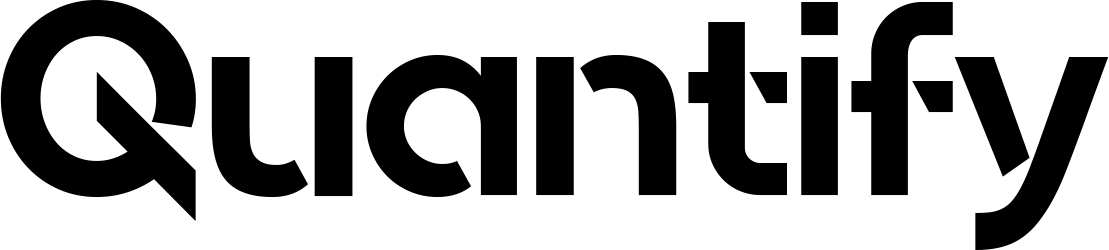
Quantify Font
Searching for a sans serif font that’s stenciled, and will give your typography a futuristic feel. Then the Quantify is brilliant as it looks modern and informal. This modern sans serif font has bold characters with cutting edges and provides you with solid letterforms.
If there is a place where you need something approachable and futuristic then Quantify won’t let you down at all, with its mixed case alphabets, numbers, and symbols suitable for websites, projects, books, social media, and movies.